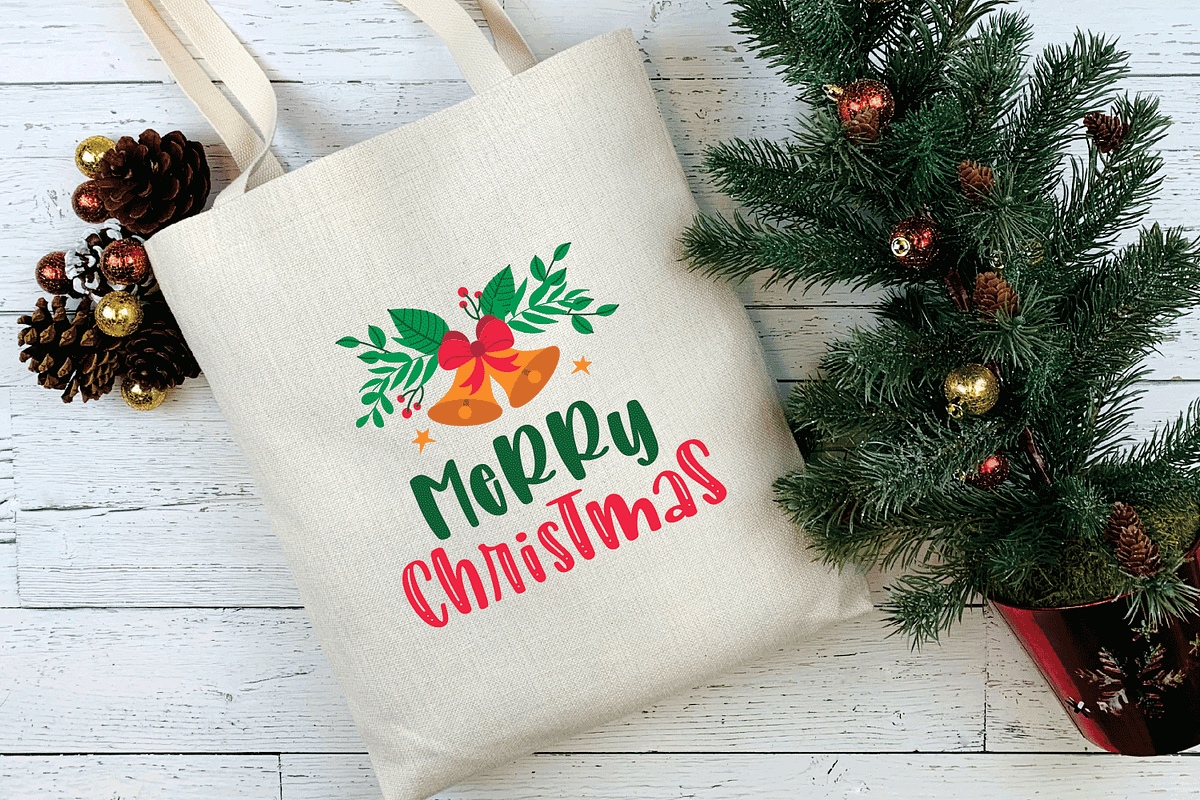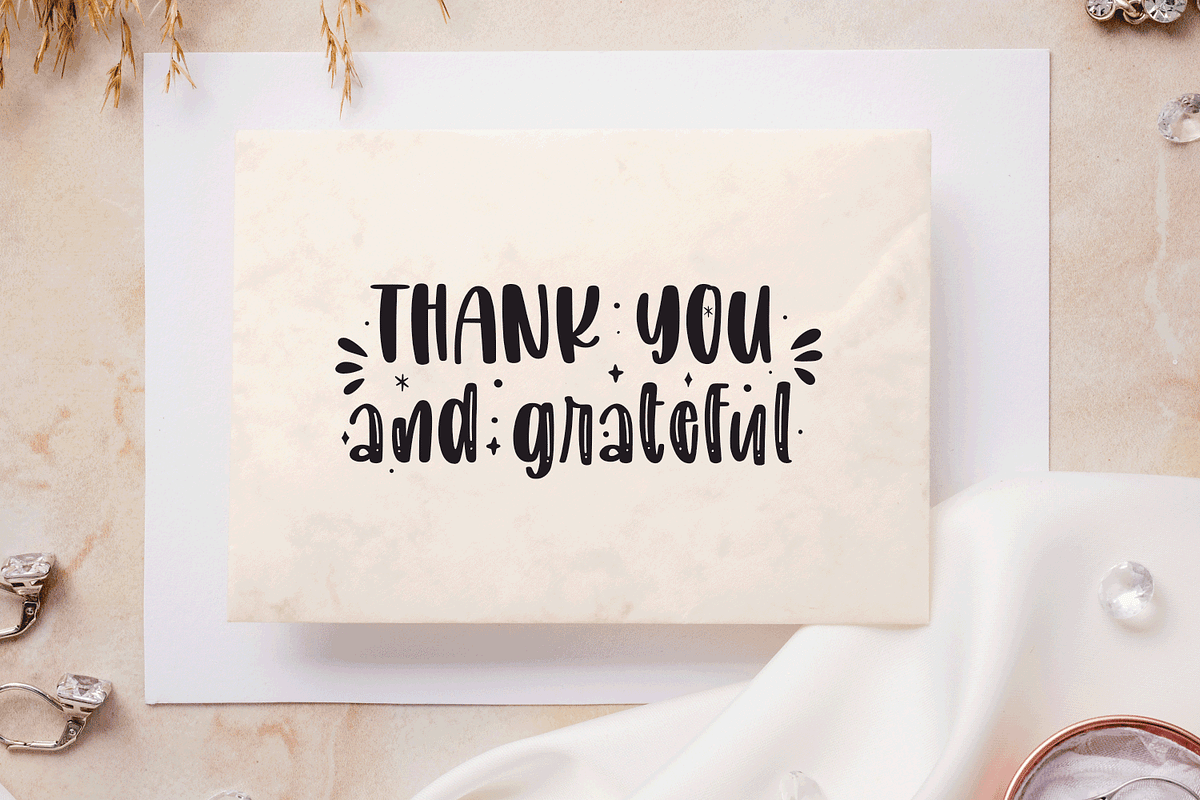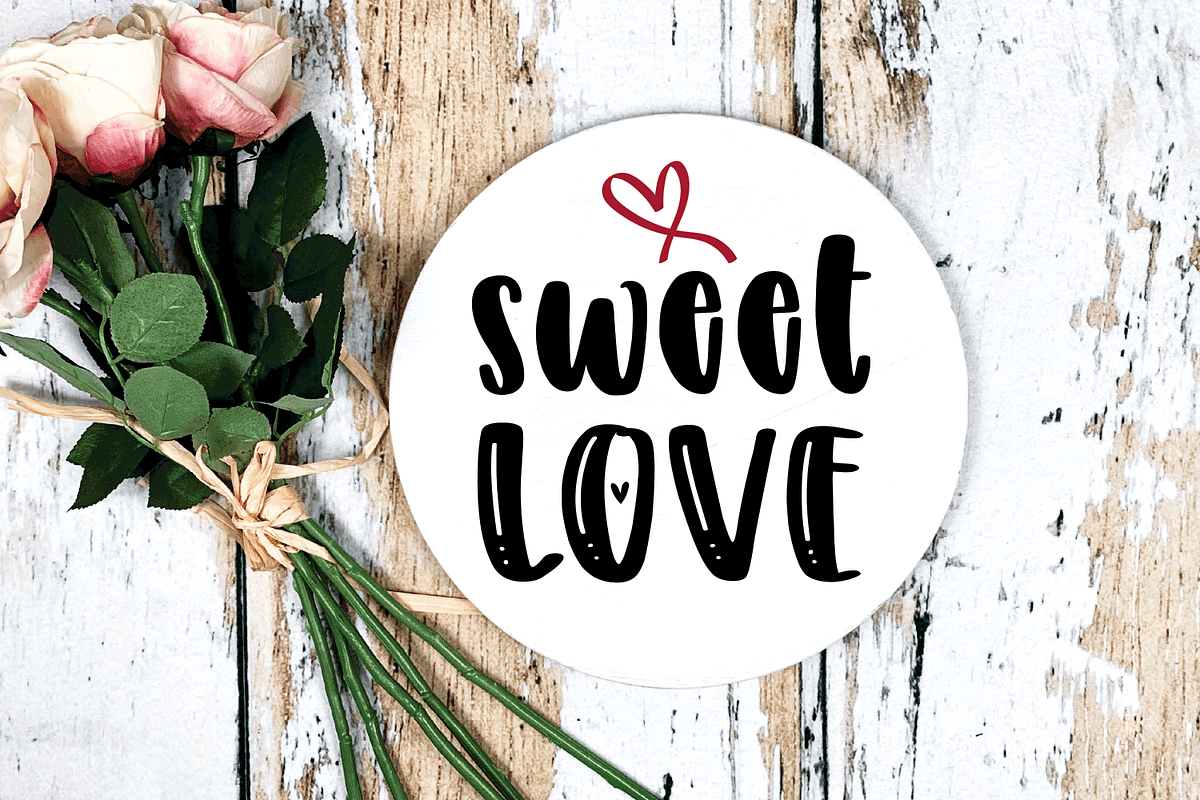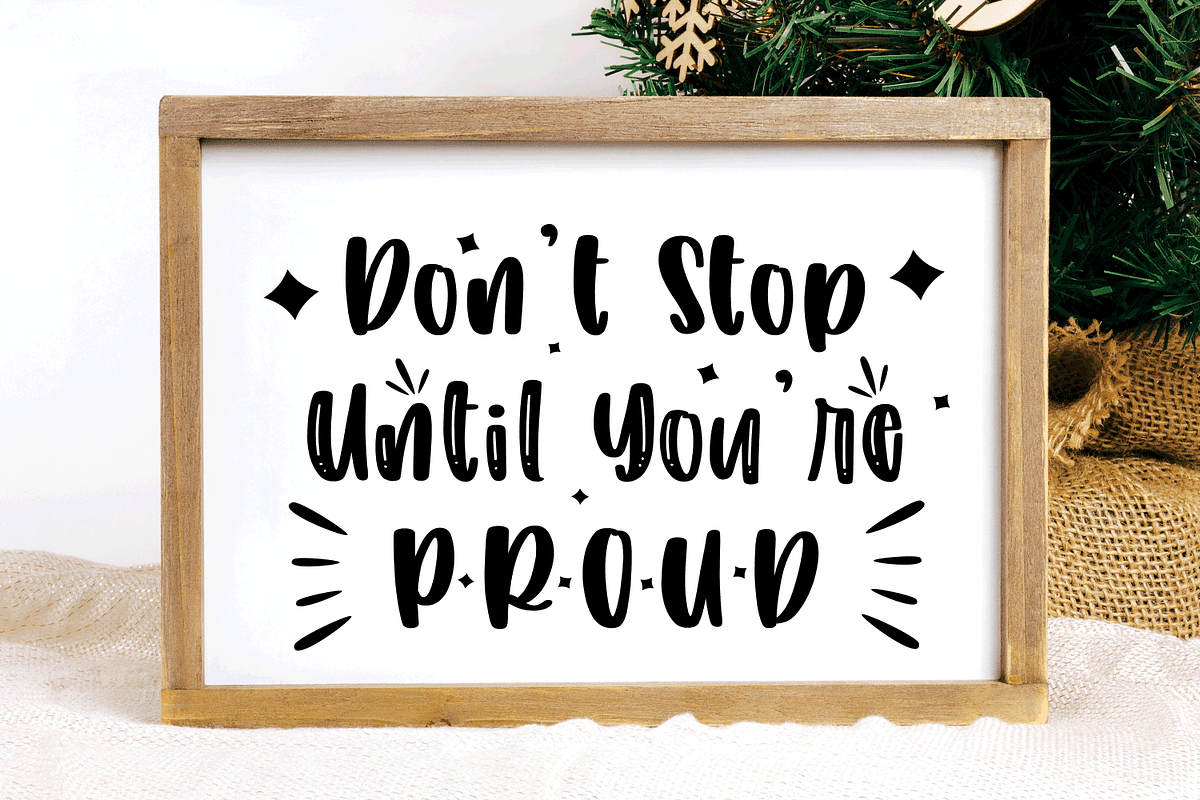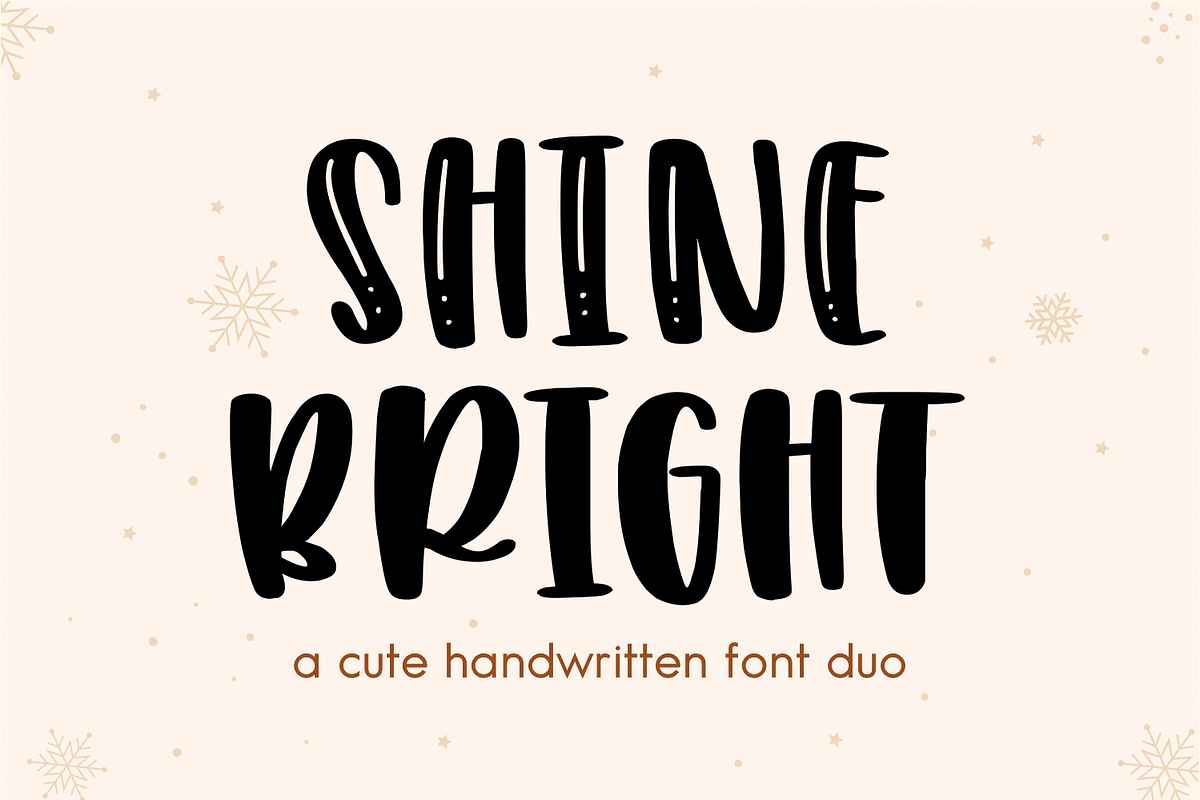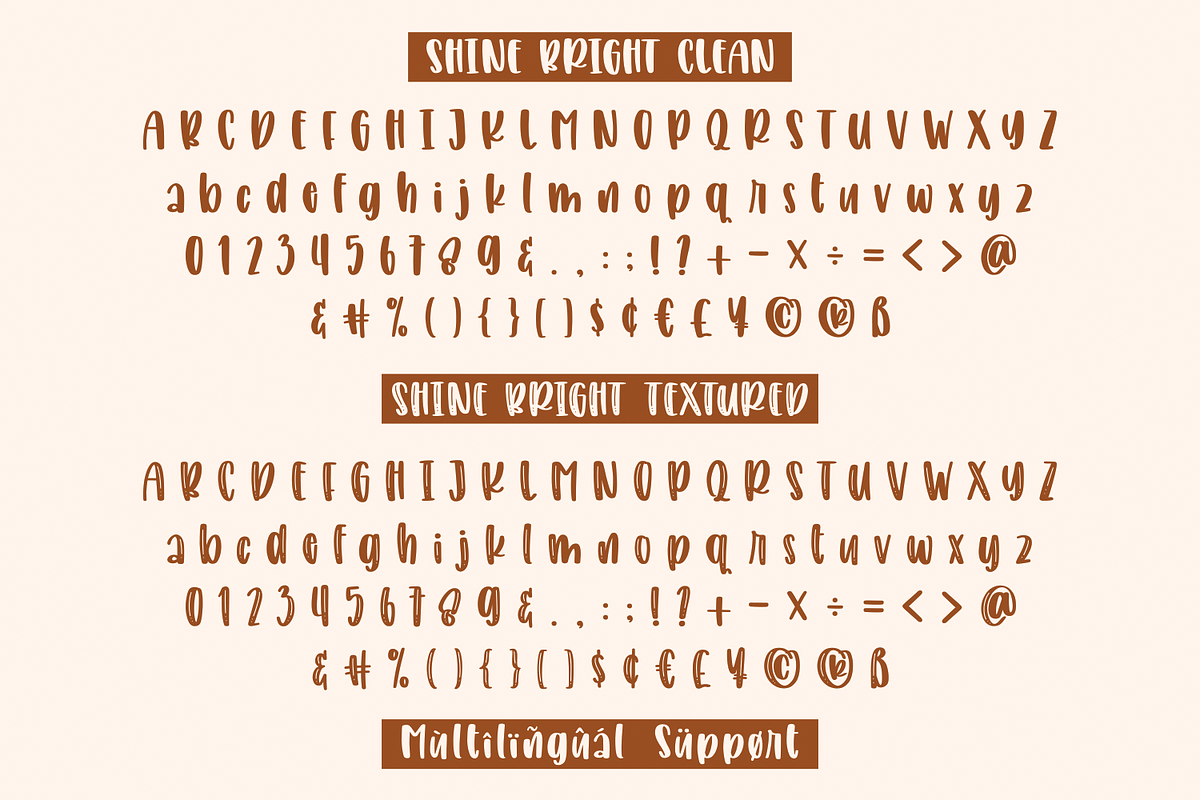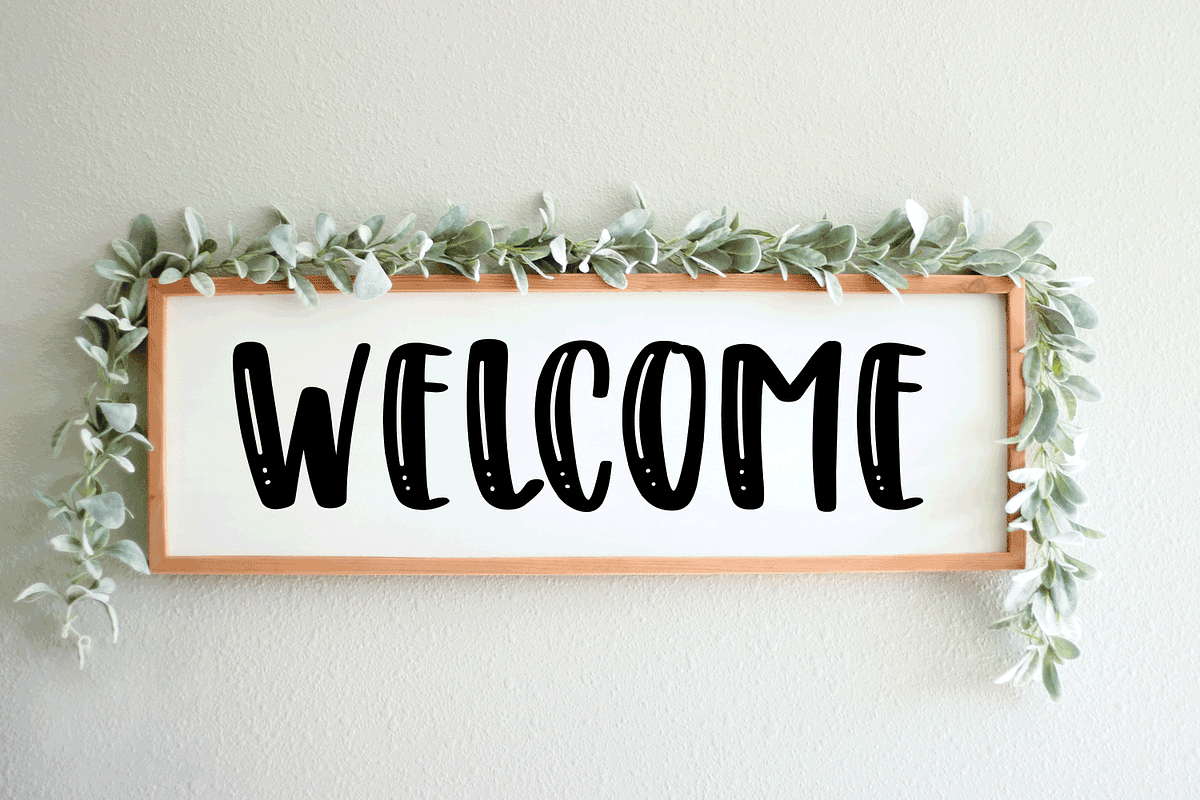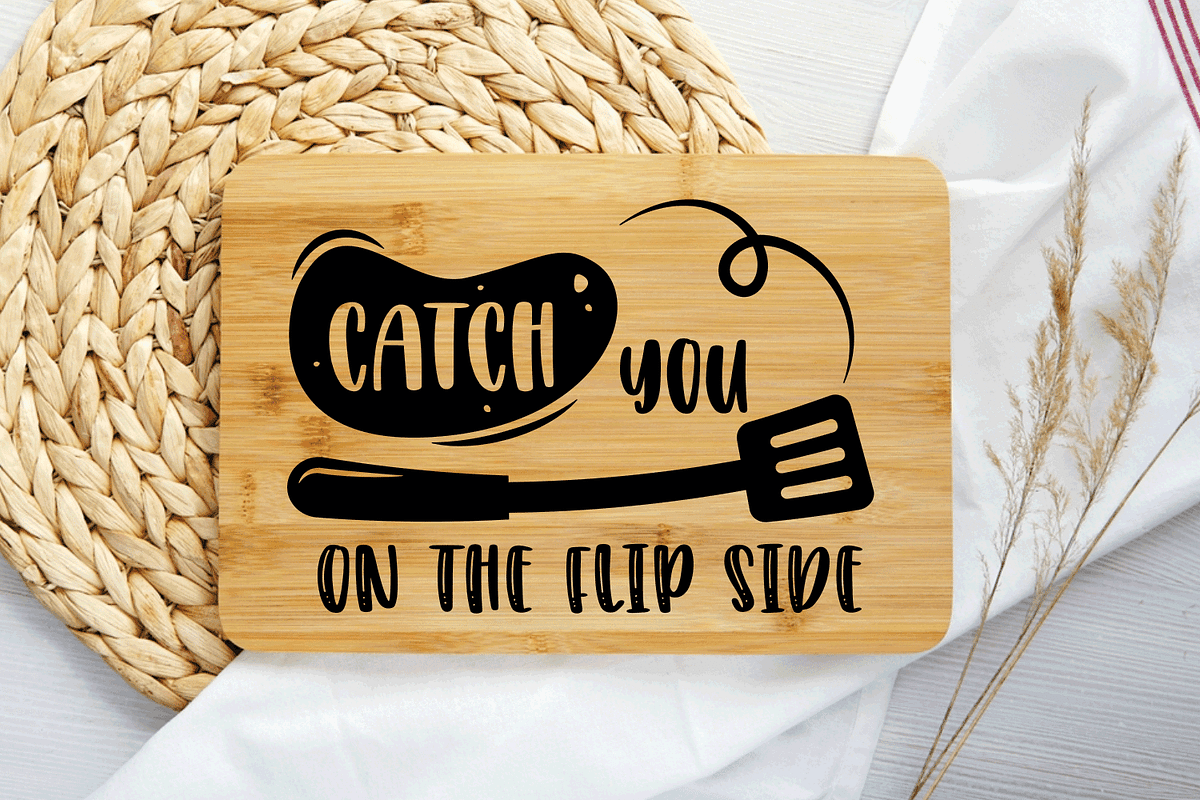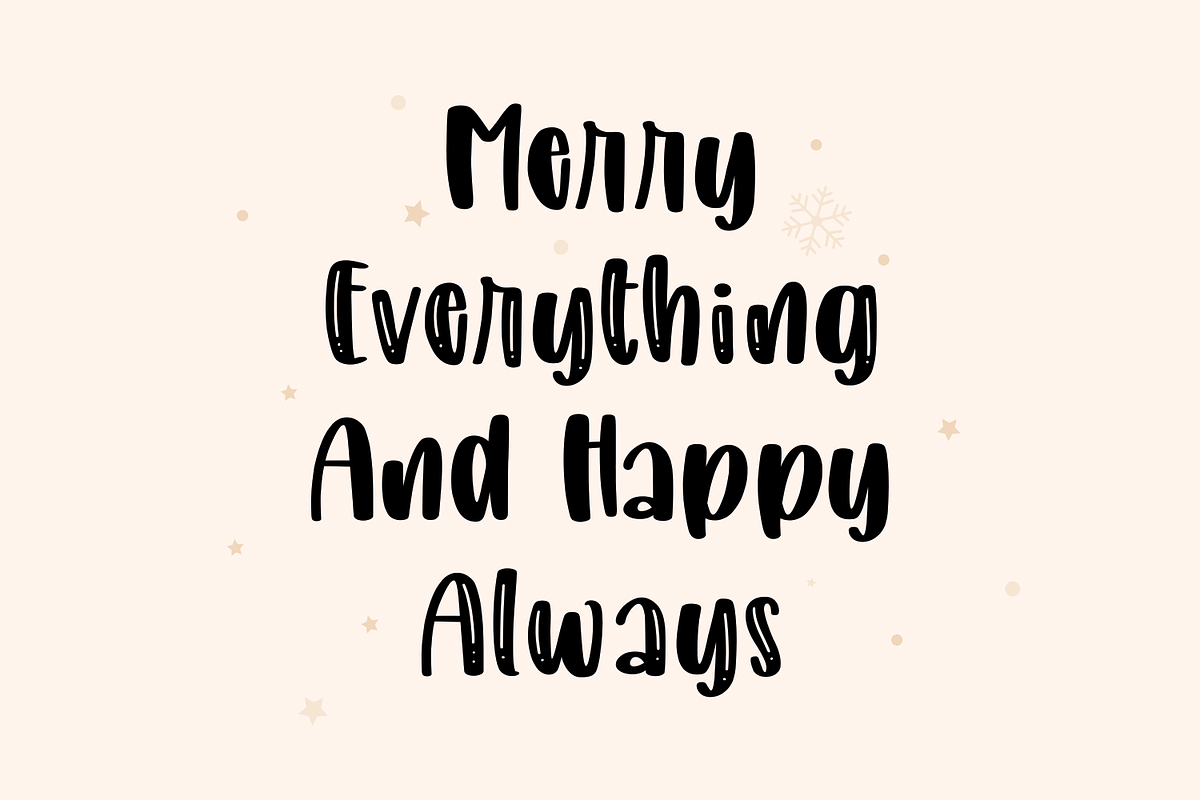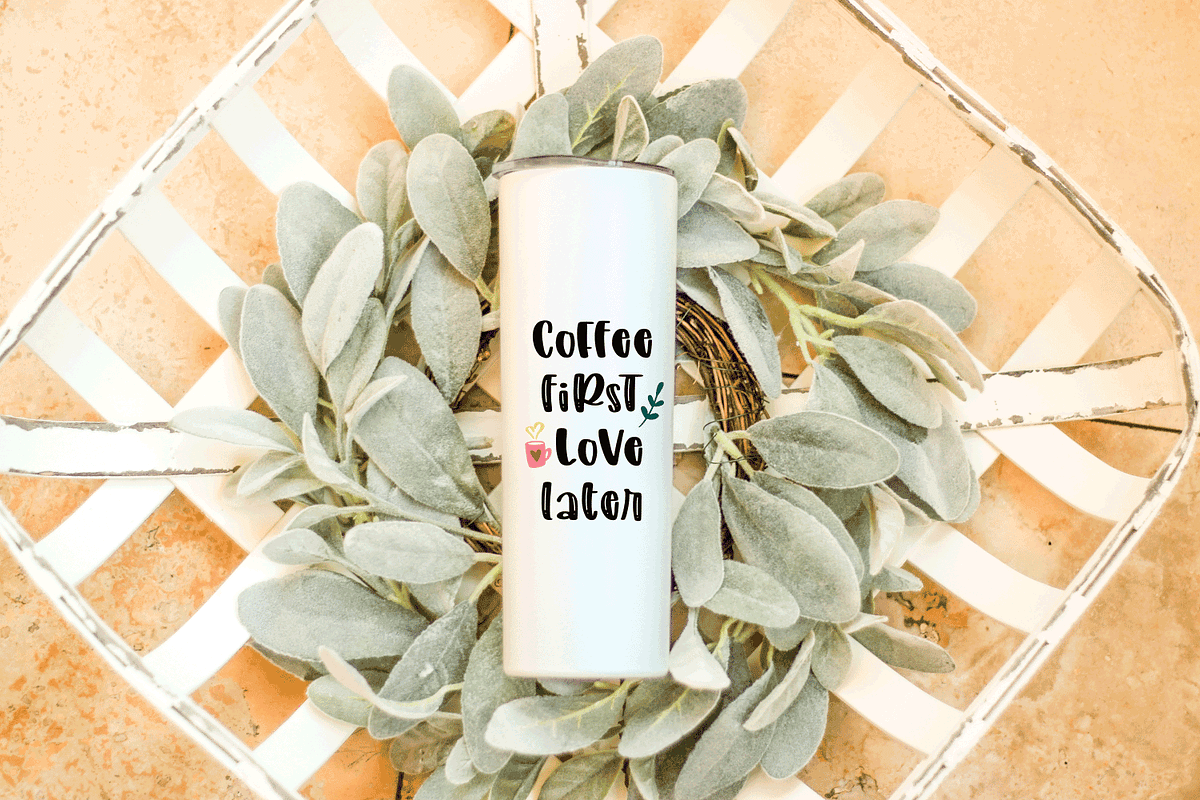
SHINE BRIGHT
SHINE BRIGHT is a cute font duo. It is a cool and quirky display font. It looks both cute and jolly and it will enhance each of your designs. The only limit is your imagination.
SHINE BRIGHT typeface includes 2 different styles; Clean and Textured. So you can combine them with each other and get quirky designs.
This font is ideal for crafting, branding, and decorates your any project. These fonts are perfect for wedding invitations or your blog. Also with their help, you can create a logo or beautiful frame for your home. Or just use it for your business, book covers, stationery, marketing, magazines, and more. Fall in love with its incredibly versatile style and use it to create spectacular designs!